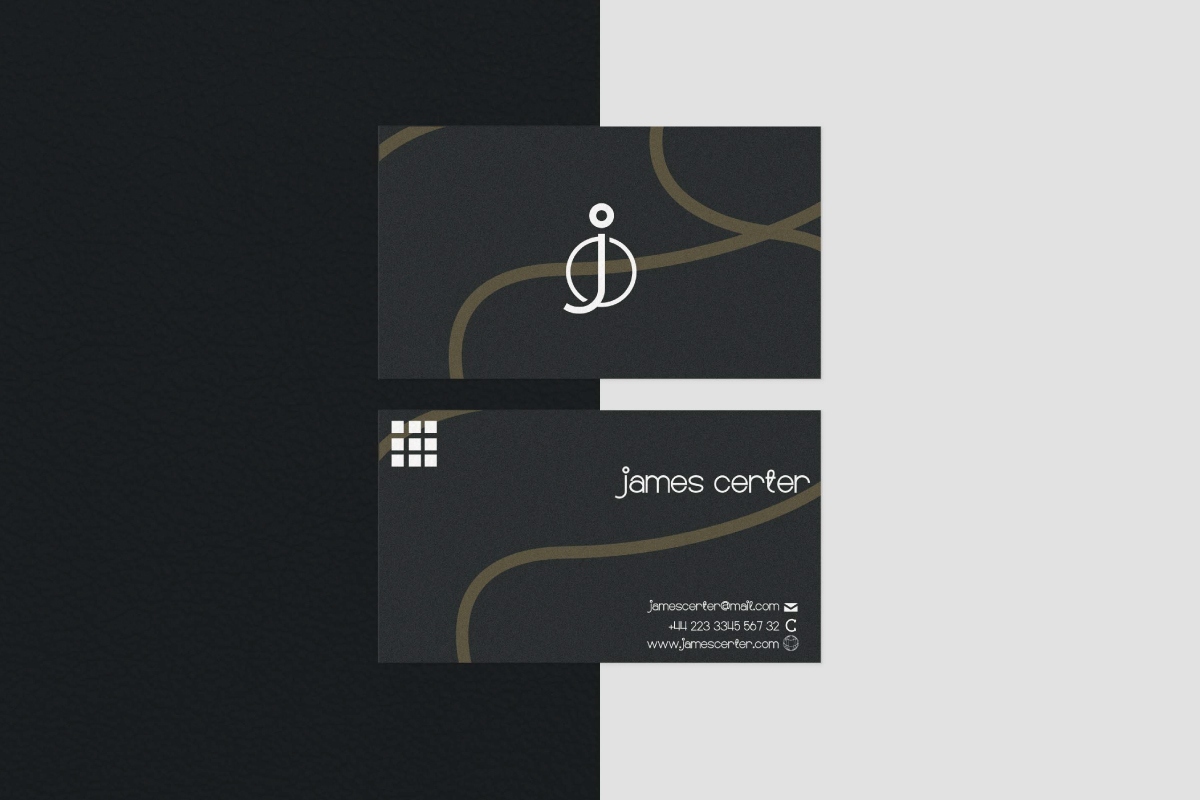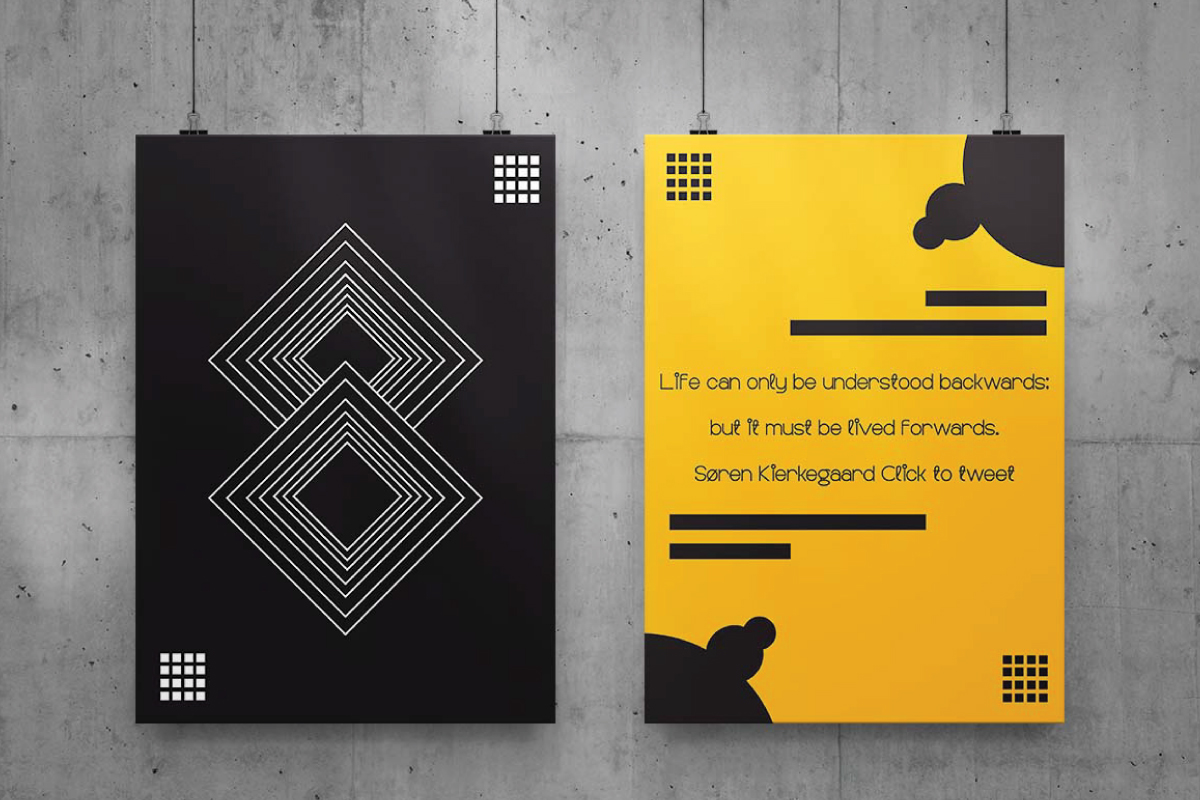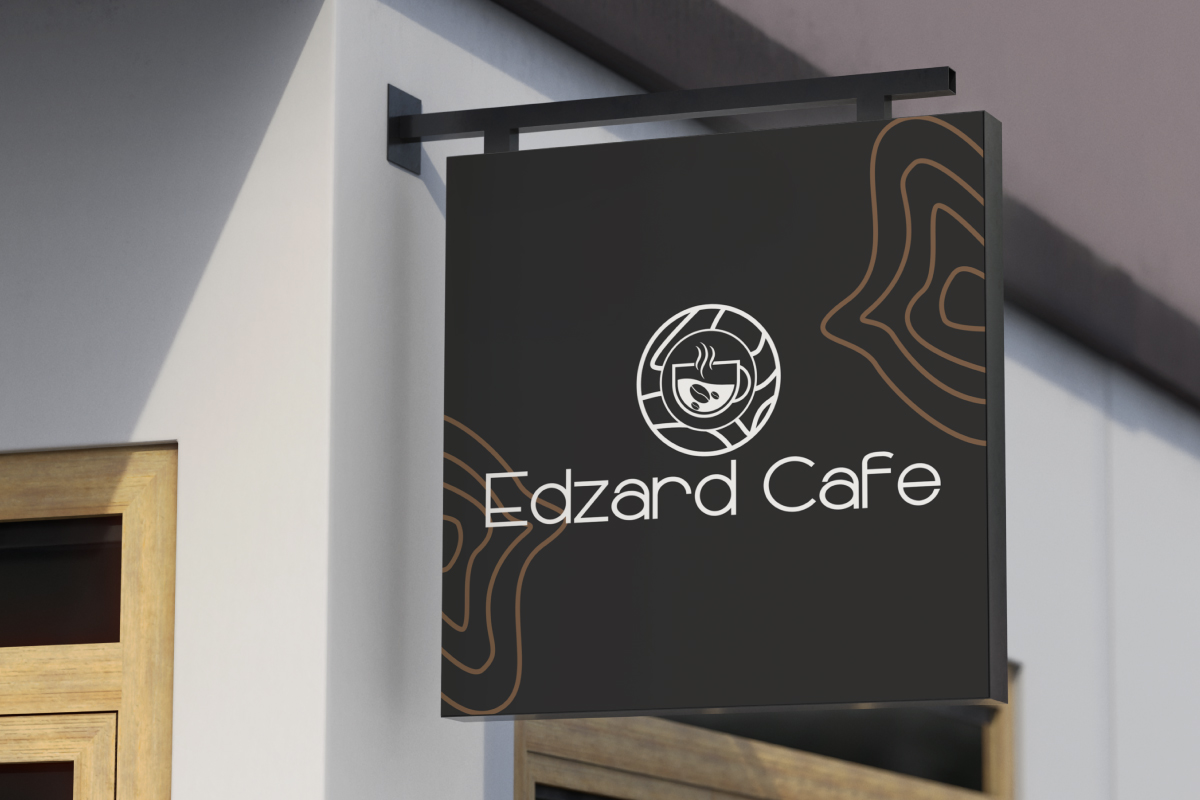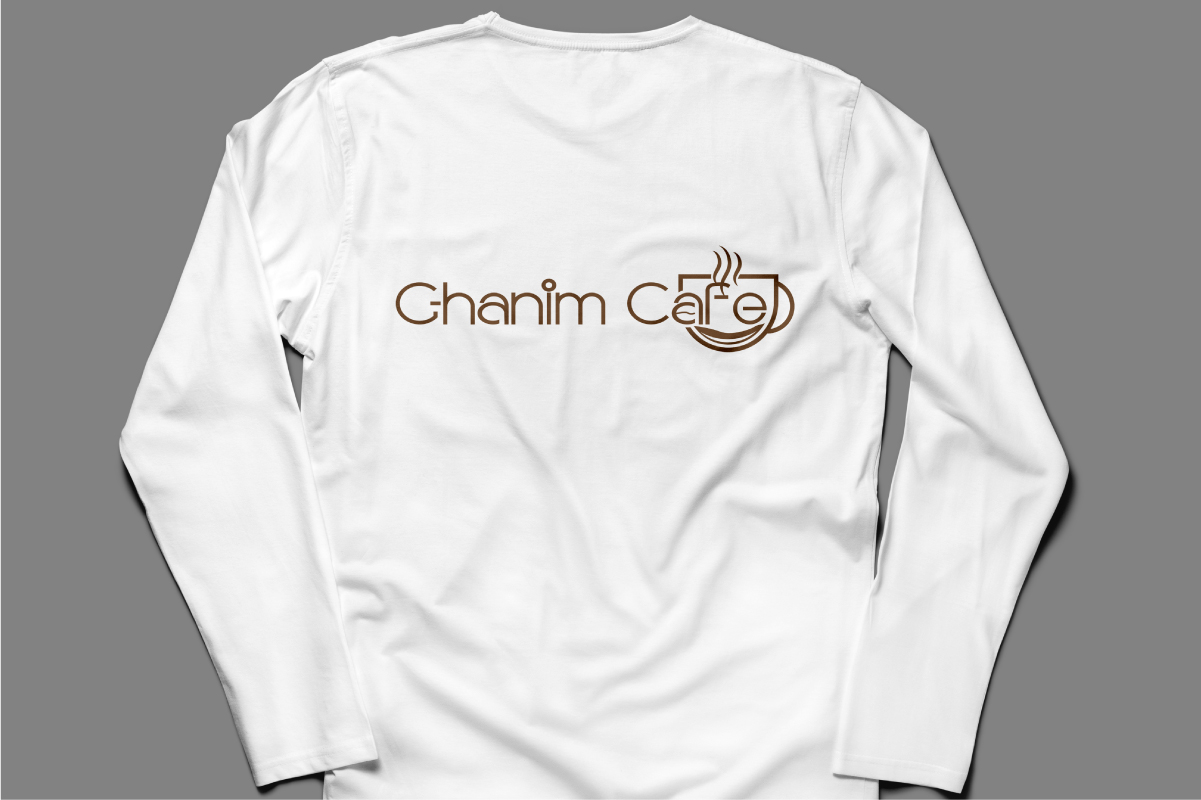
Allegany Sans Serif Font
It’s an elegant and modern sans serif display font family, exclusively designed by NihStudio. The font is inspired from the monochrome and simplicity of modern industries. The font shows a unique and minimalist design with balance of hard and smooth lines. The font comes with six styles and each one of them can stand on its own with stunning looks.